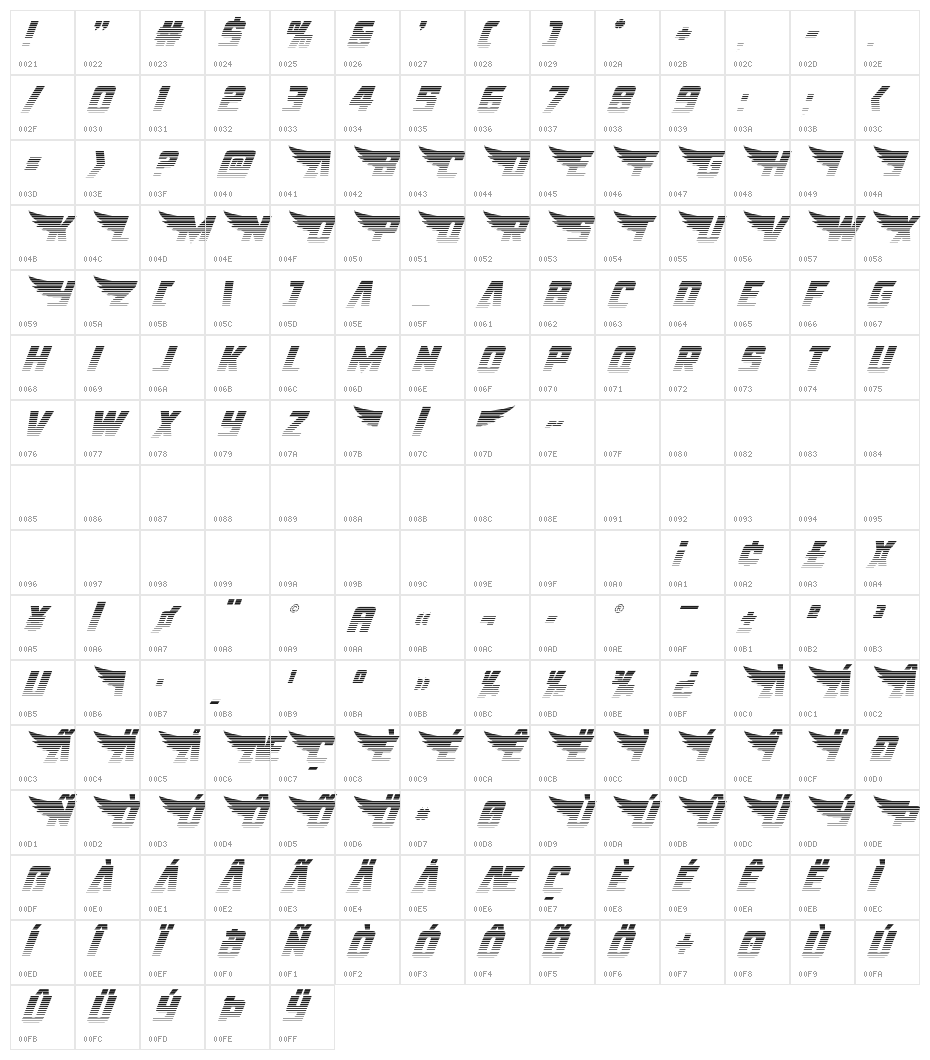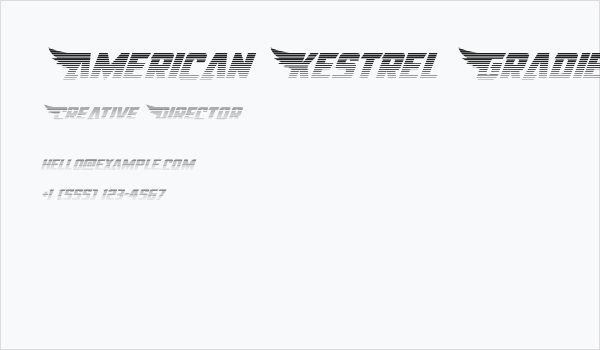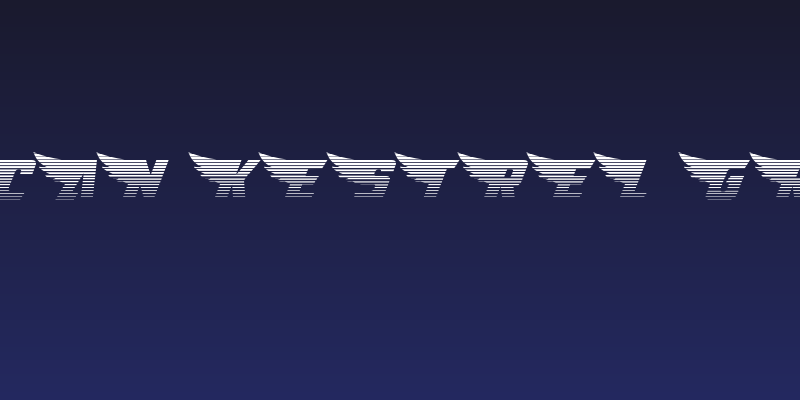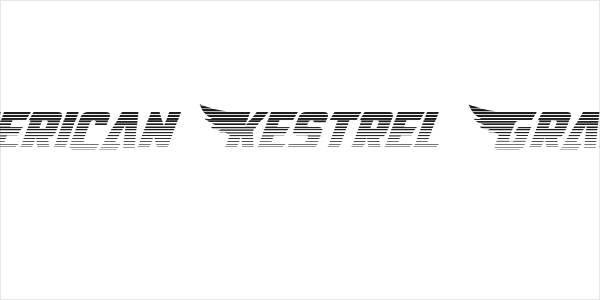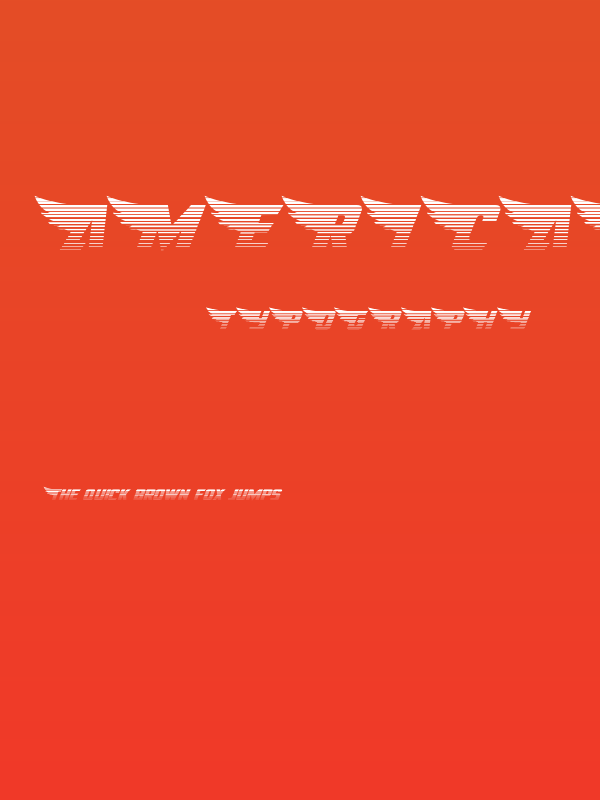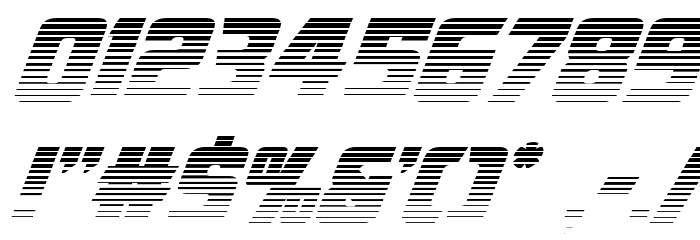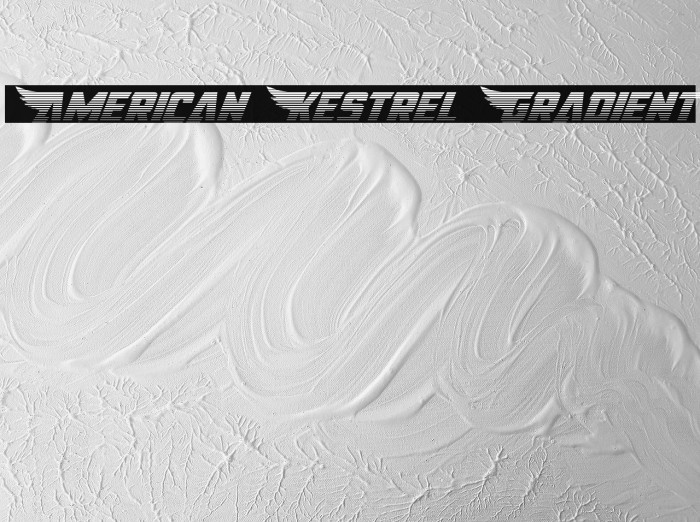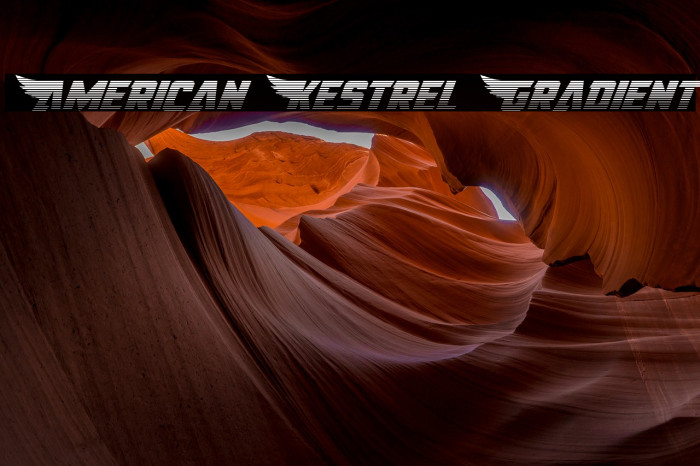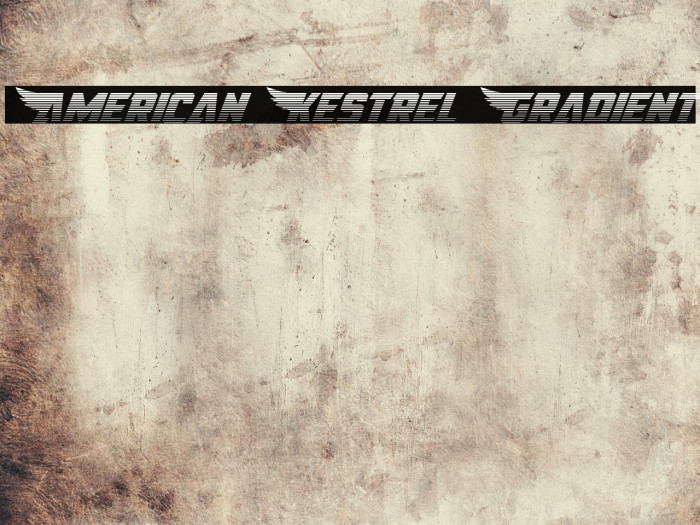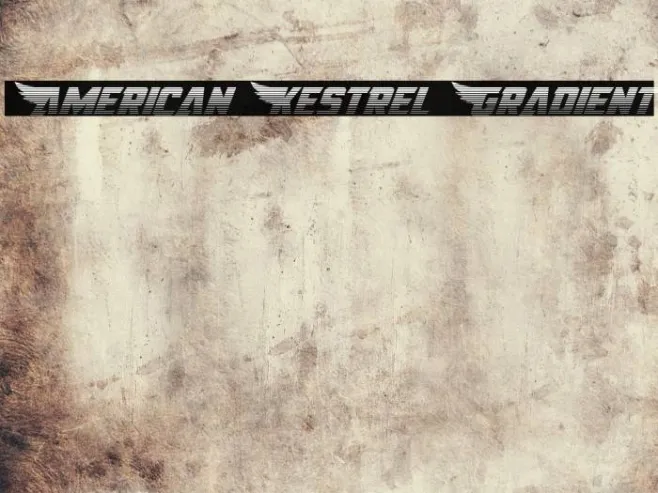
American Kestrel Gradient Font
American Kestrel Gradient Description
This font features a dynamic and futuristic design, characterized by its bold, slanted letters with a gradient effect that creates a sense of motion and speed. The uppercase letters are particularly striking, with sharp angles and a consistent horizontal line pattern that gives them a unique, modern appearance. The numerals and special characters maintain this style, ensuring a cohesive look across all glyphs. The font's distinctive style makes it ideal for projects that require a bold, eye-catching typeface.
| Proposed Projects | Ideal for sports branding, tech-related projects, video game titles, and dynamic posters. |